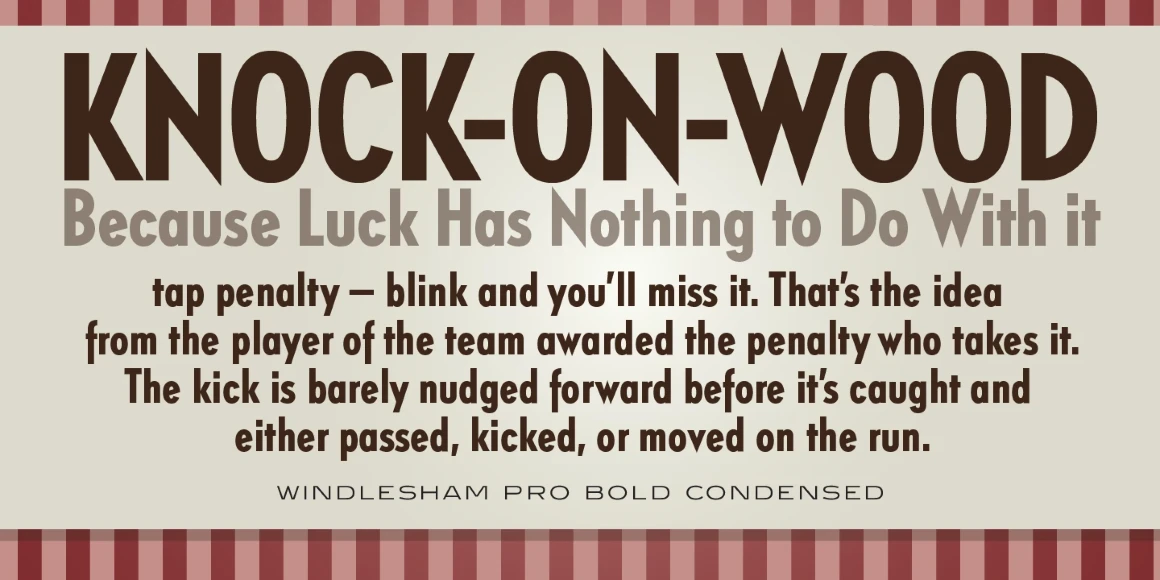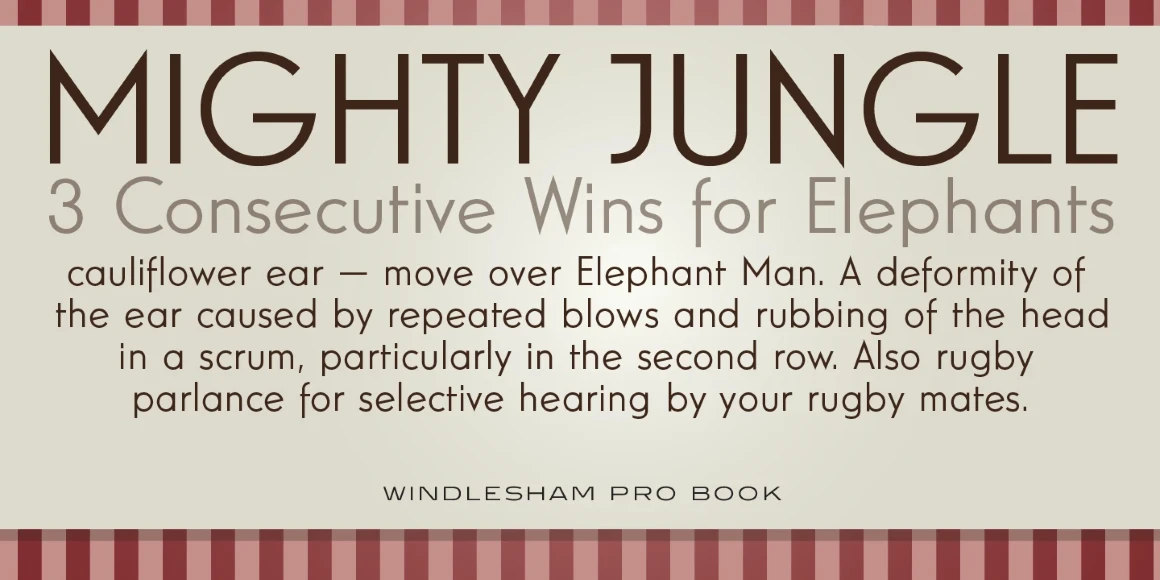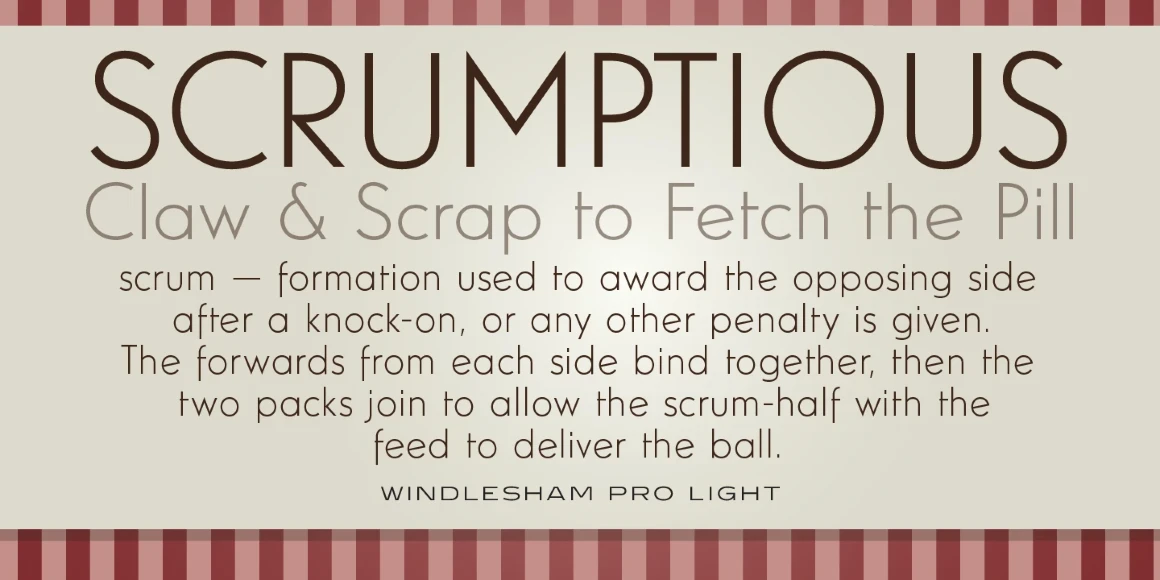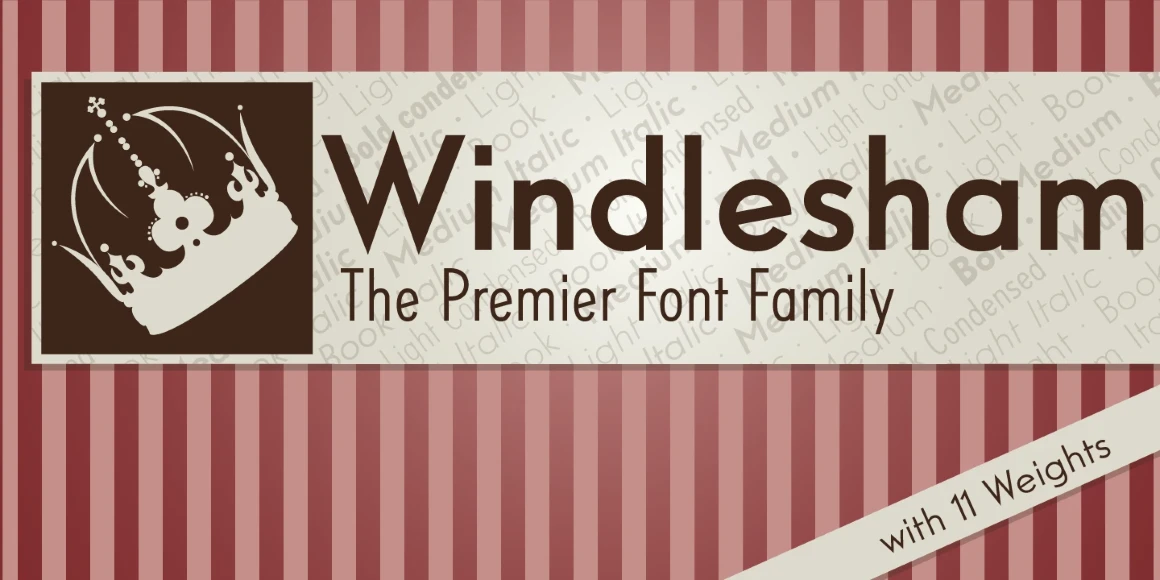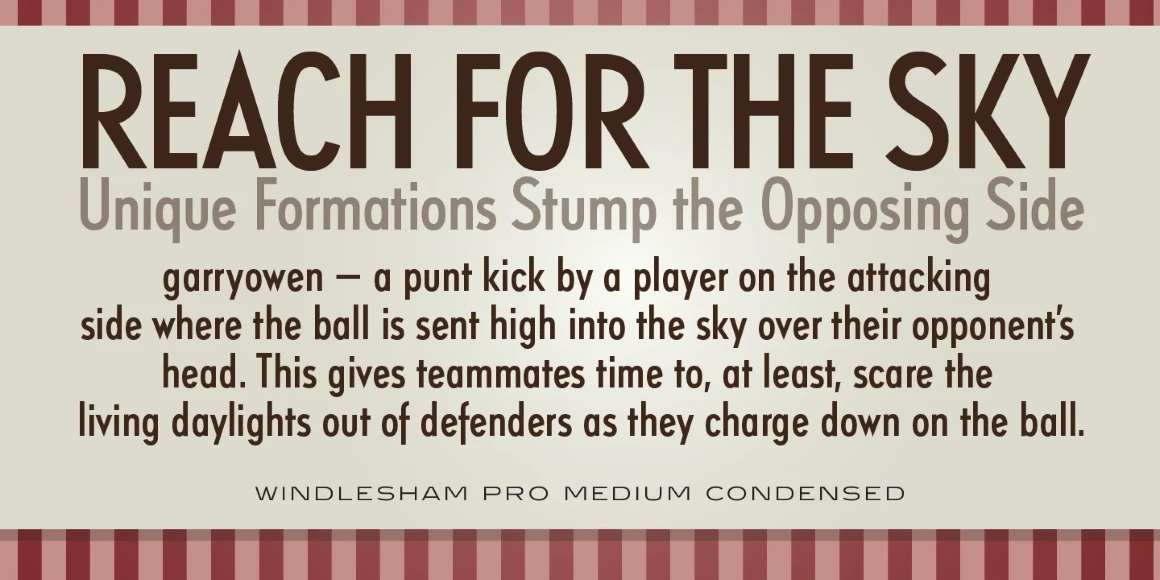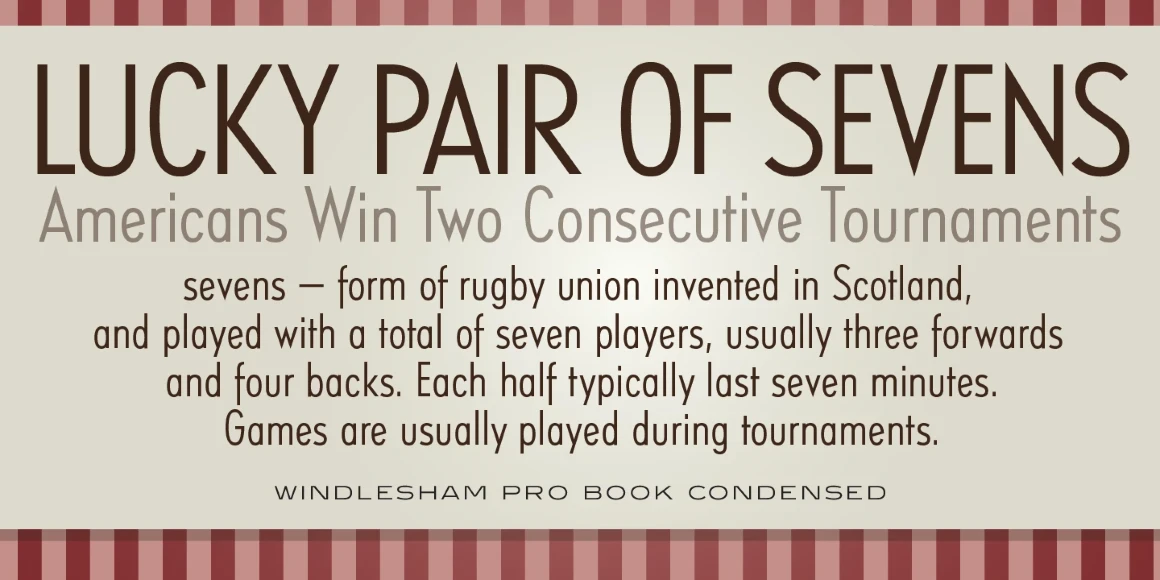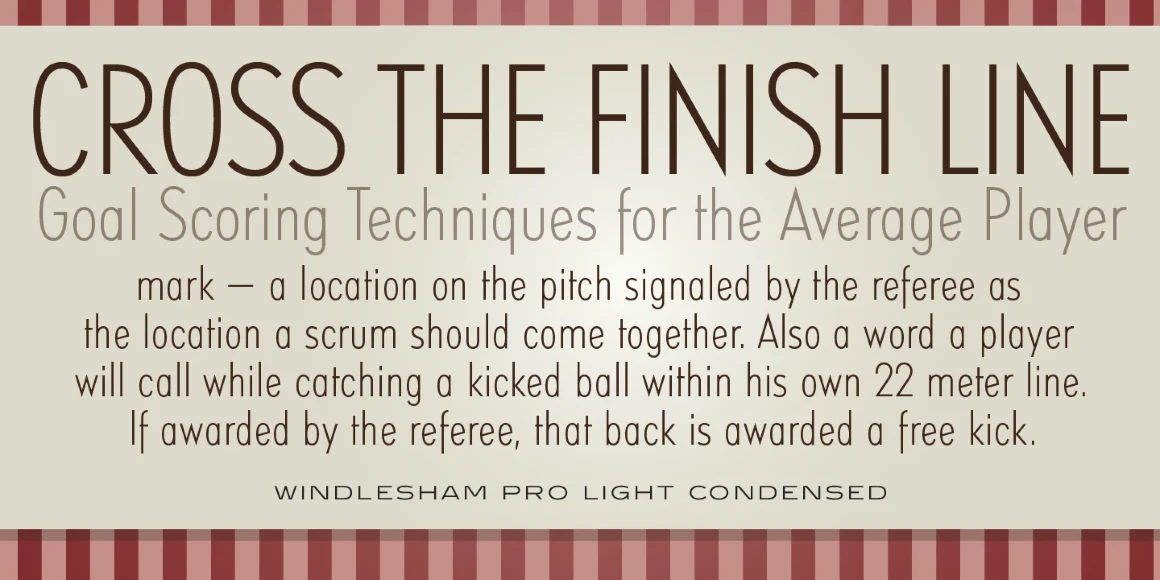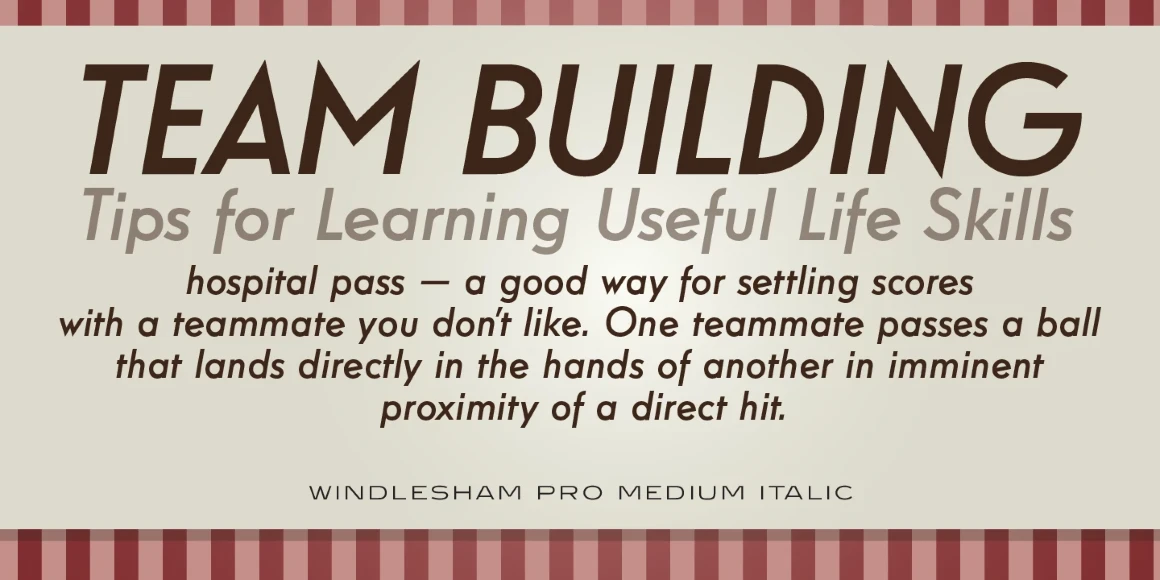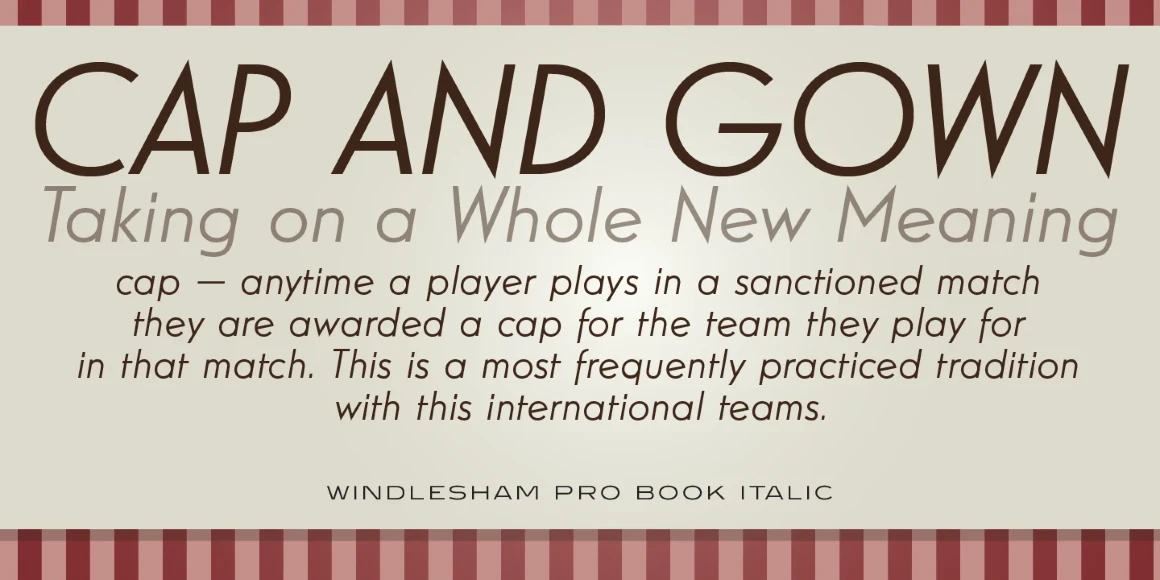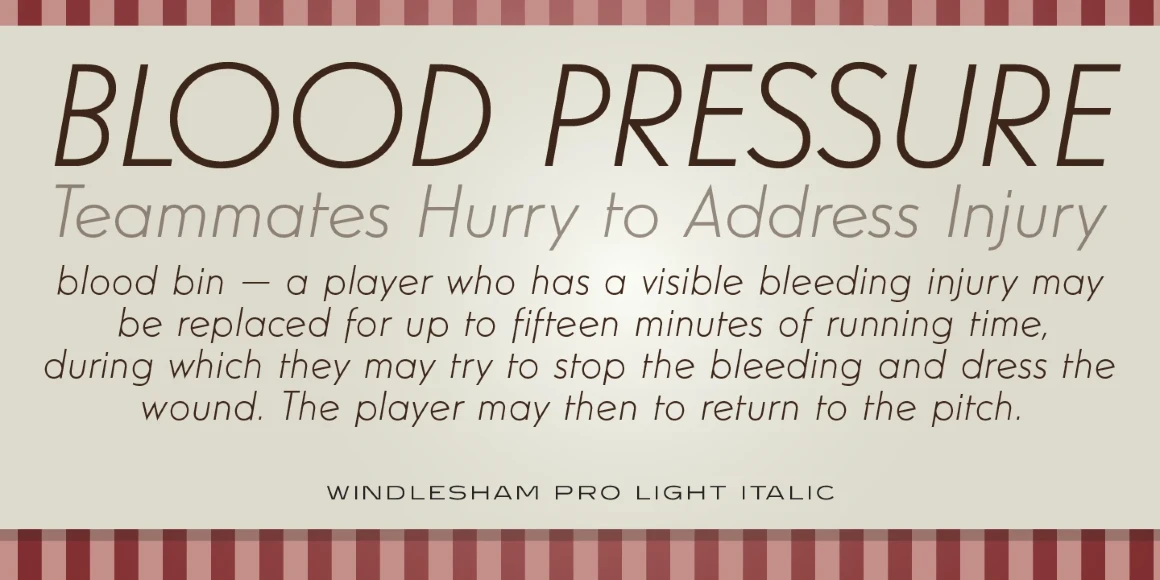
Windlesham
Windlesham is a sans serif font family, and is sister to International TypeFounders’ ‘Guildford Pro’ and ‘Relish Pro’ typefaces. It was created and produced by Steve Jackaman (ITF) and Ashley Muir in 2011. The family is named after the village of Windlesham in Surrey, England, which was home to the “Brickmakers Arms,” a country pub dear to Jackaman’s heart. Windlesham has a geometric modern look. Wherever Windlesham is utilized, whether it be in paragraph or display size, a visual cleanliness is always present.